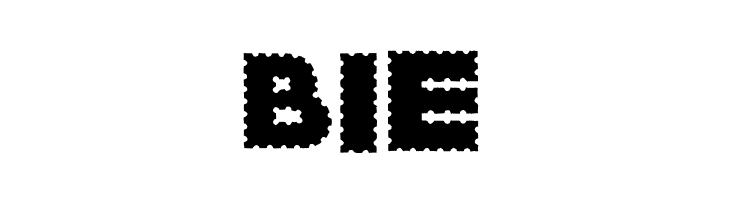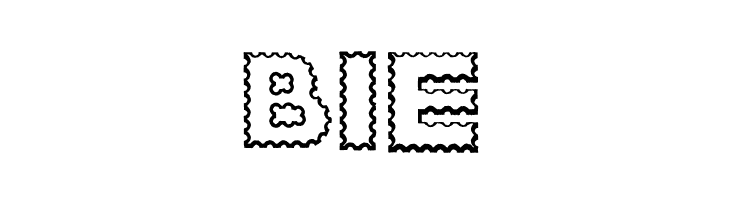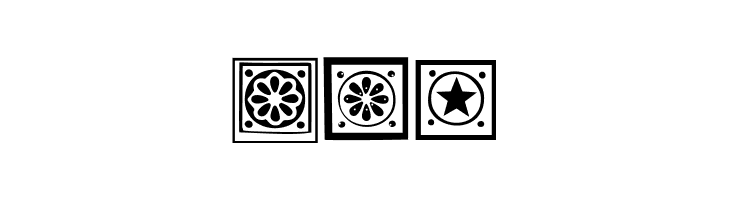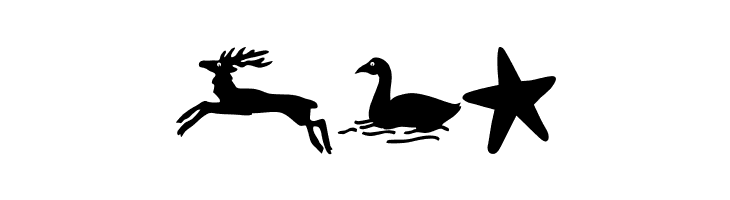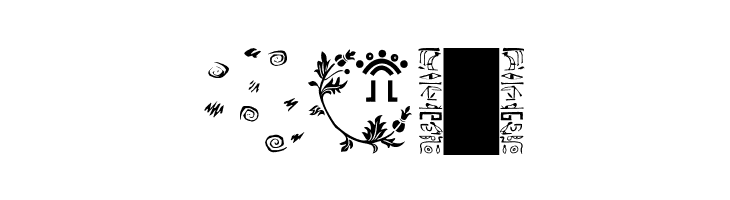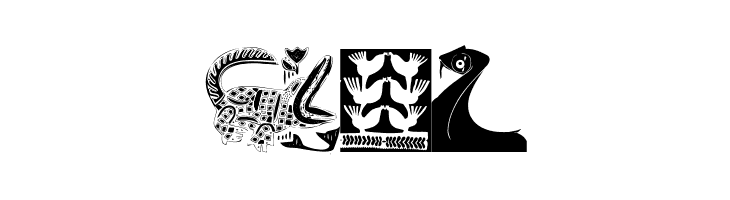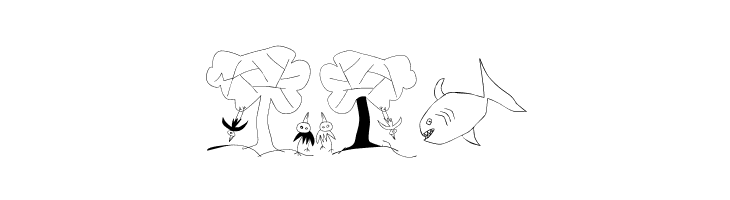
• WacoheadsTwo
Playful hand-drawn font with cartoon faces as characters.
• ZagzagGoosePimples
A bold, playful font with a zigzag pattern for dynamic visual impact.
• ZagzagCaps
A bold, playful font with a zigzag pattern outlining each character.
• OrnataUno
A decorative font with intricate ornamental designs in square frames.
• EighteenMayanMonths
A decorative font inspired by ancient Mayan glyphs, featuring intricate and bold designs.
• ZooloVectoriA
Animal silhouette font with each character as a distinct animal shape.
• DesignPartsOne
A collection of ornate and decorative elements with vintage and classical influences.
• PhantasyDolls
A playful dingbat font with whimsical, storybook-style illustrations.
• RareAnimals
Animal-themed decorative font with unique illustrated glyphs.
• KarlasAnarchists